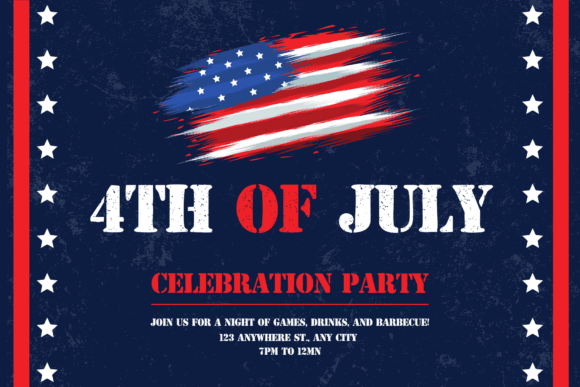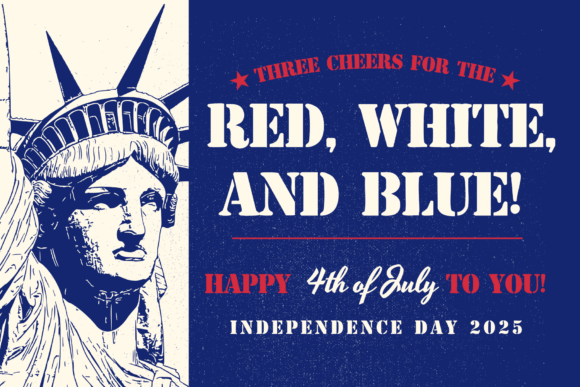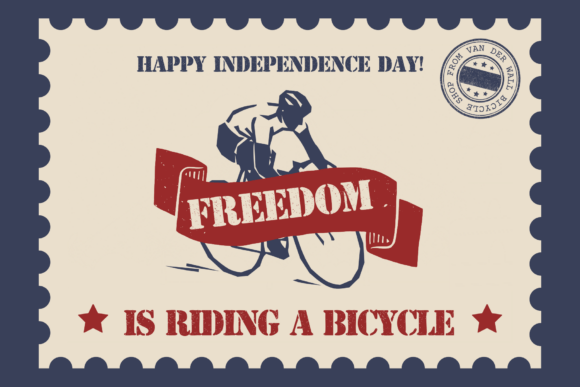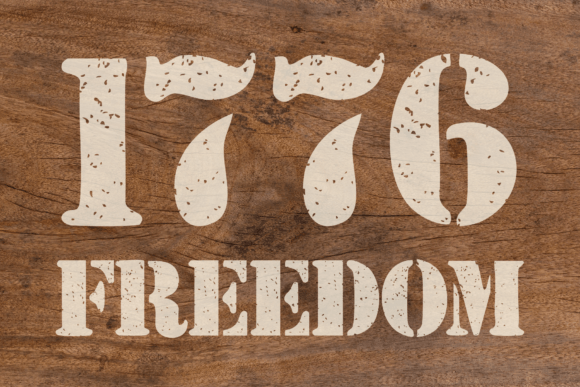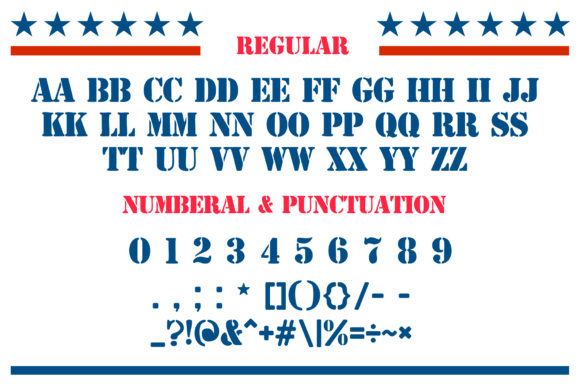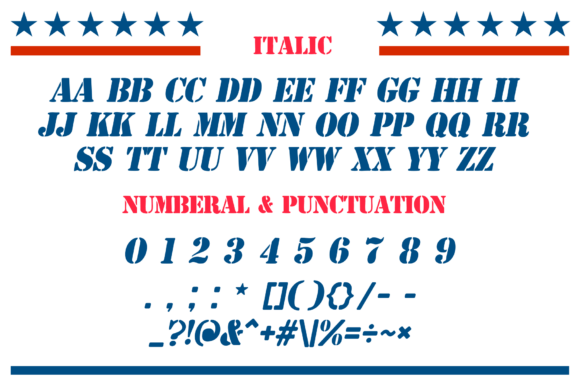
Introduction to Liberty Stencil Font Font
Fonts play a crucial role in design, and the Liberty Stencil Font font is a typeface that brings both character and versatility to any project. Whether you’re working on a branding project, a website, or a print design, the Liberty Stencil Font font offers a unique style that can elevate your work.
Liberty Stencil is a bold and commanding display typeface inspired by the grit and glory of American military heritage.
With sharp, clean cuts and a classic stencil structure, Liberty Stencil evokes the spirit of 1776βfreedom, resilience, and patriotic pride Perfect for headlines, posters, apparel, and any design that calls for strength and character, this typeface marches with confidence and historic gravitas.
Key Features of Liberty Stencil Font Font
Why Choose Liberty Stencil Font Font?
The Liberty Stencil Font font is more than just a typeface β it’s a design tool that helps you communicate your message with style and clarity. Its unique character set and versatile design make it suitable for a wide range of applications, from elegant invitations to bold headlines.
With its carefully crafted letterforms and balanced proportions, the Liberty Stencil Font font ensures readability and visual appeal across all mediums.
What makes Liberty Stencil Font font special?
The Liberty Stencil Font font stands out with its unique design, exceptional readability, and versatility across various design applications.